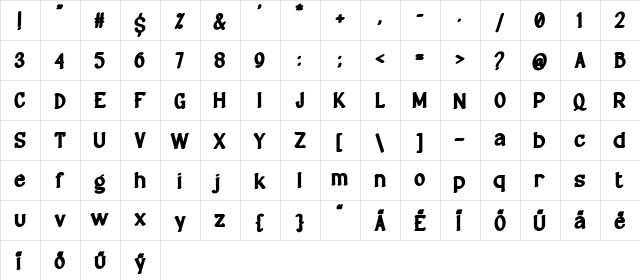
Rusthic FREE Regular
Design Context for Rusthic FREE Typeface
Rusthic FREE is a composed and adaptable typeface that performs quietly and consistently across a wide range of design contexts.
Pro Tip: Use Rusthic FREE in both headline and body roles to test its range before committing to a single application.